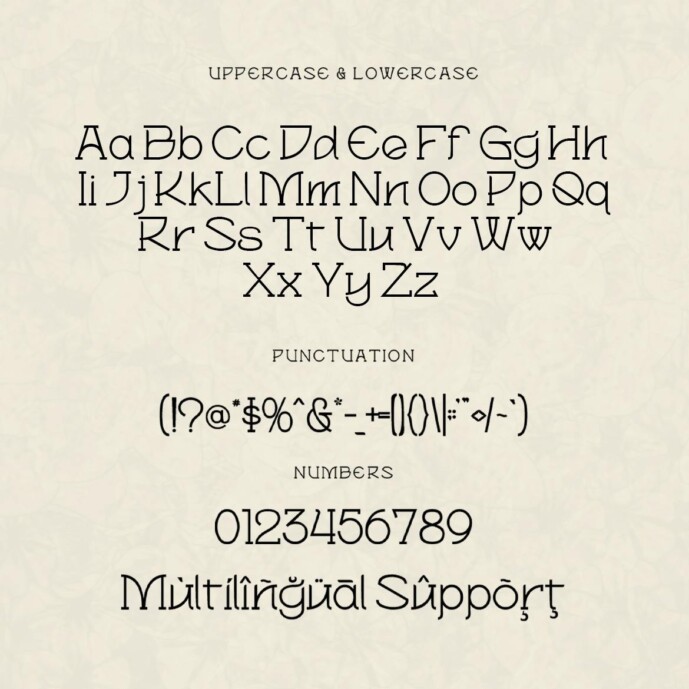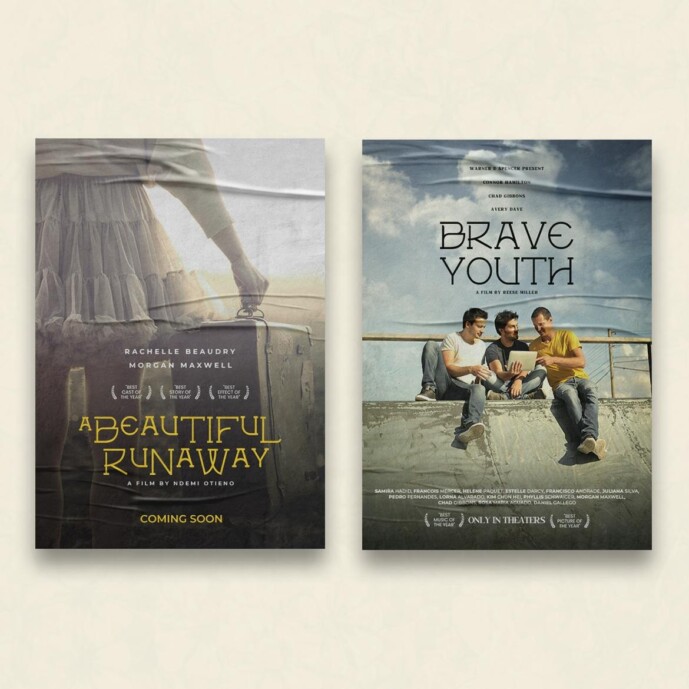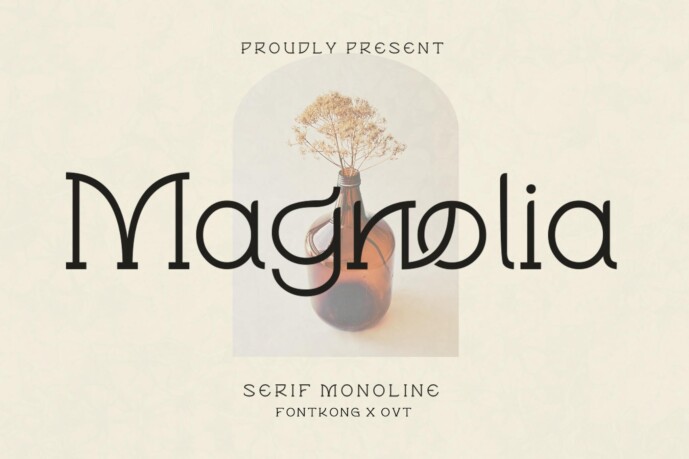
Magnolia Monoline Serif Font
Magnolia Monoline Serif Font, a serene and subtle monoline serif font that brings a touch of elegance to any design. Ideal for those looking for an elegant, clean typeface with a uniform stroke, Magnolia is best suited for minimalist brands, clean website design, and sophisticated print media